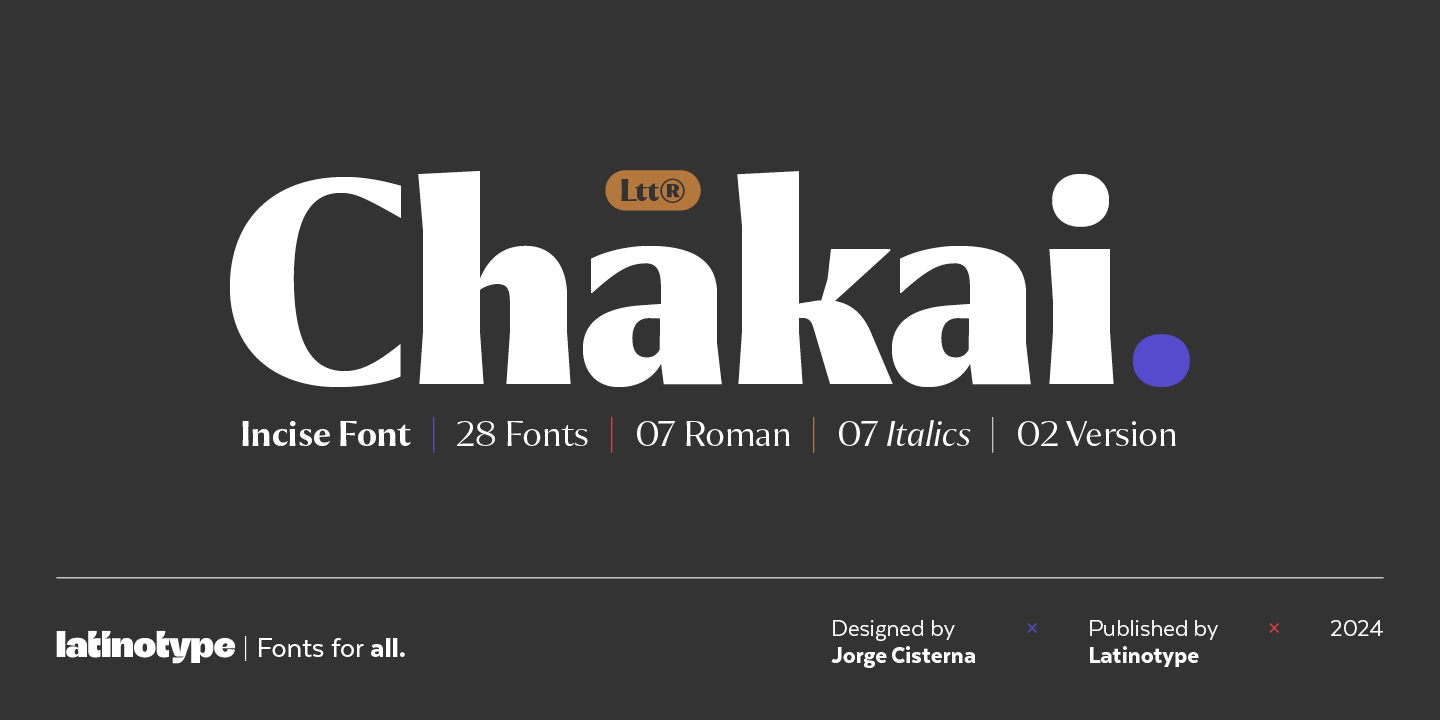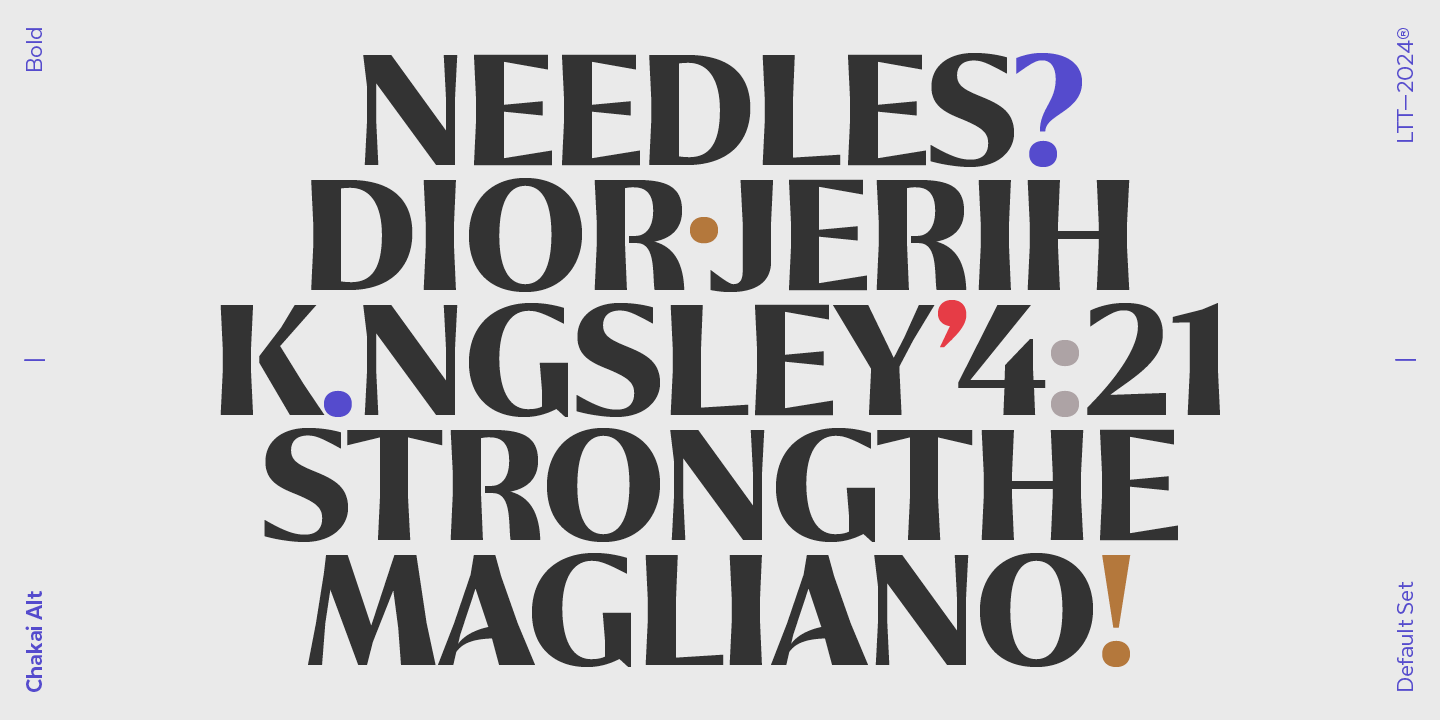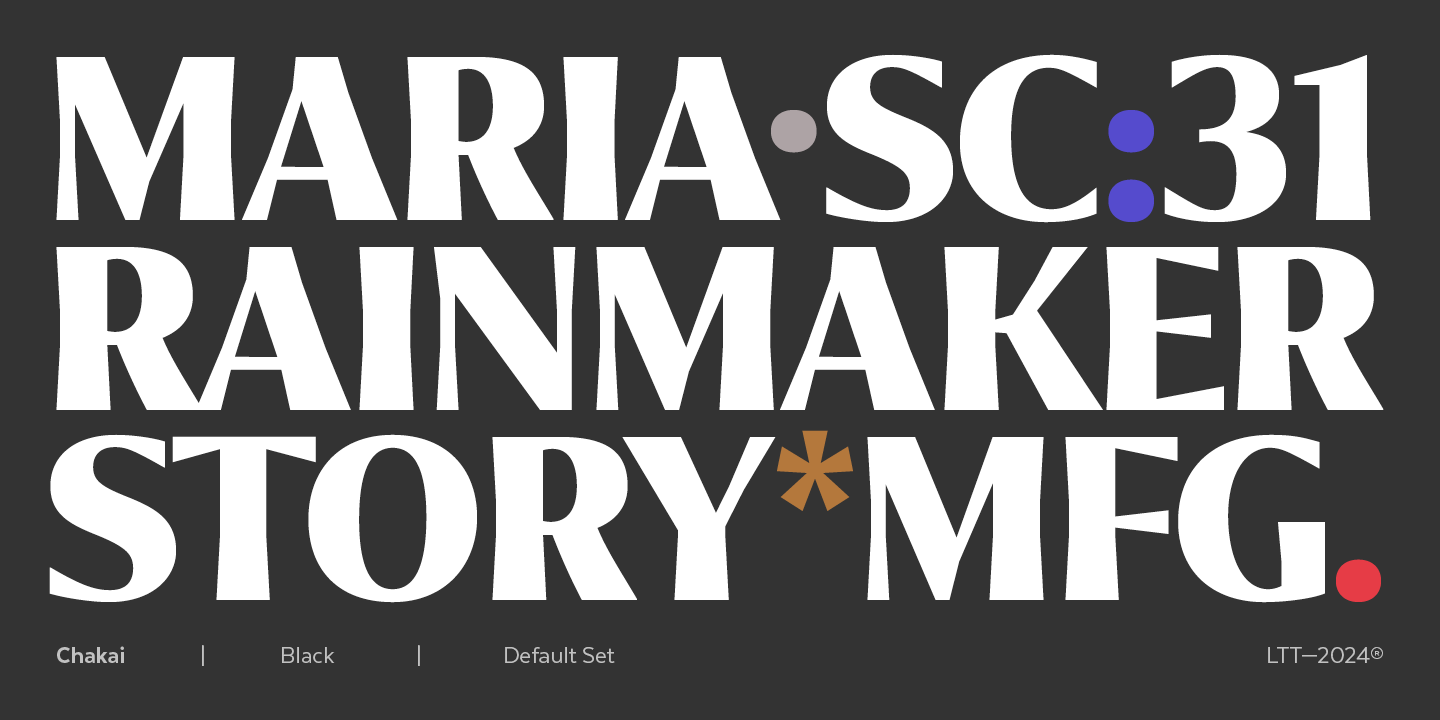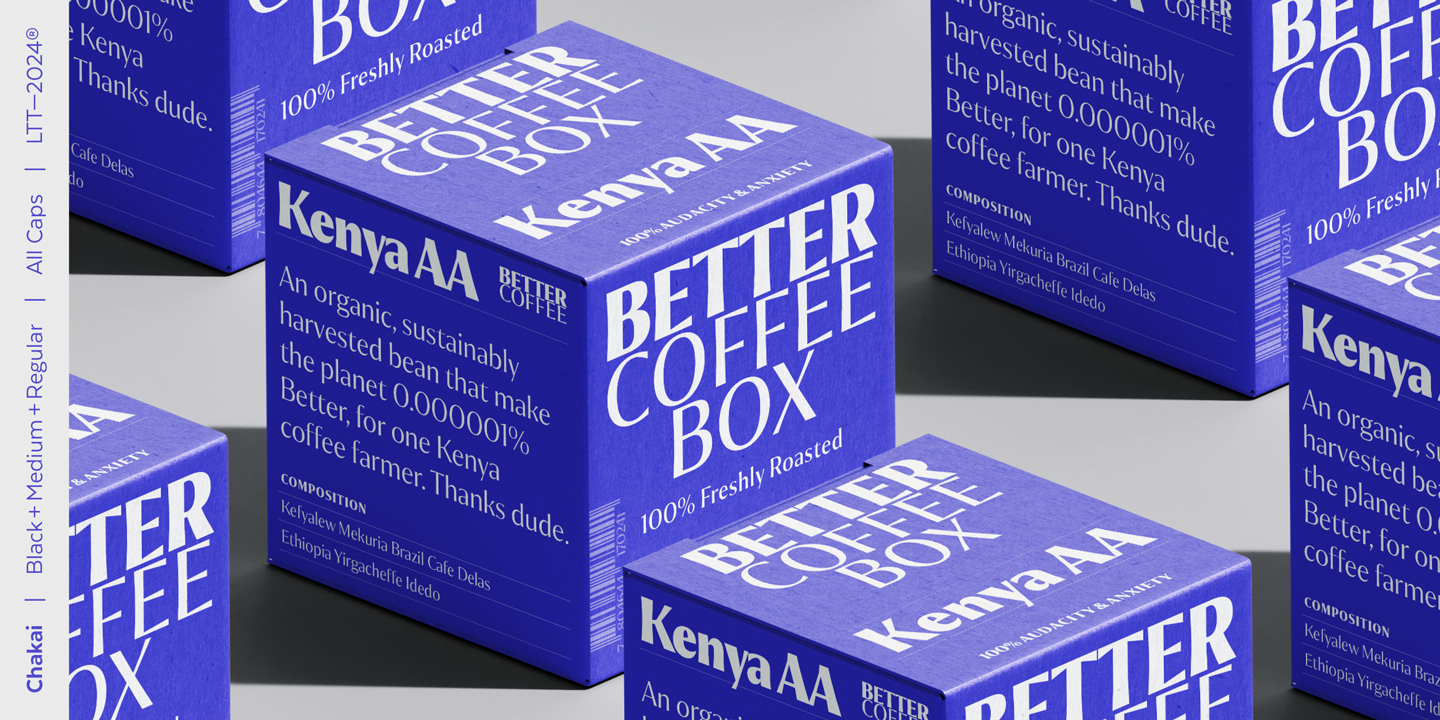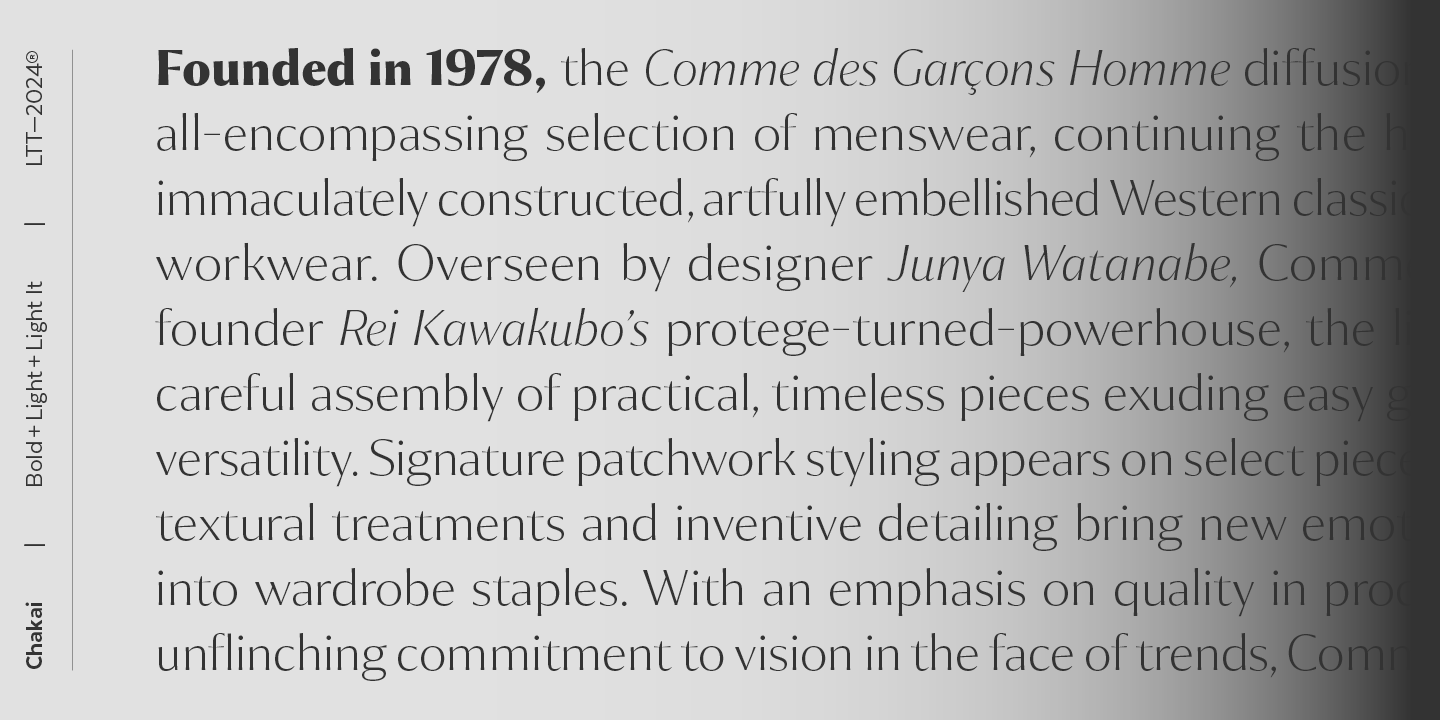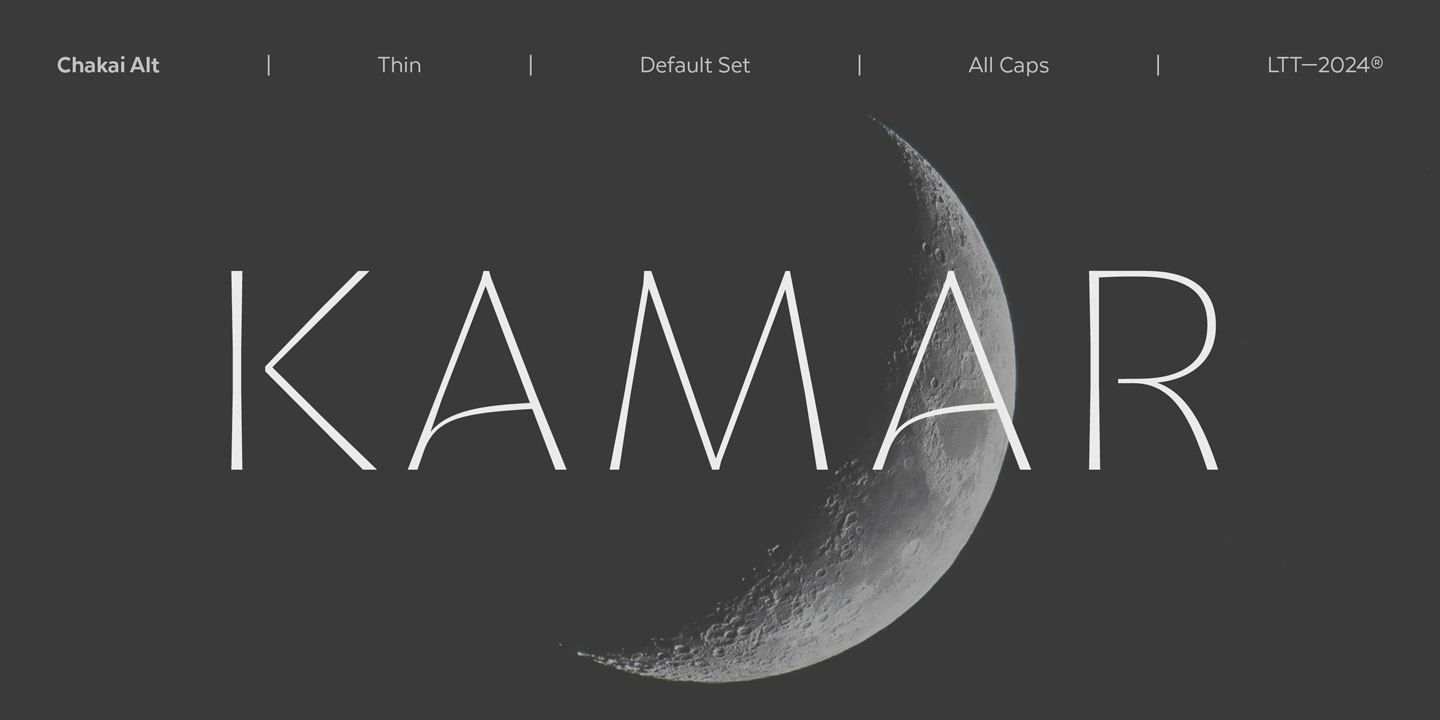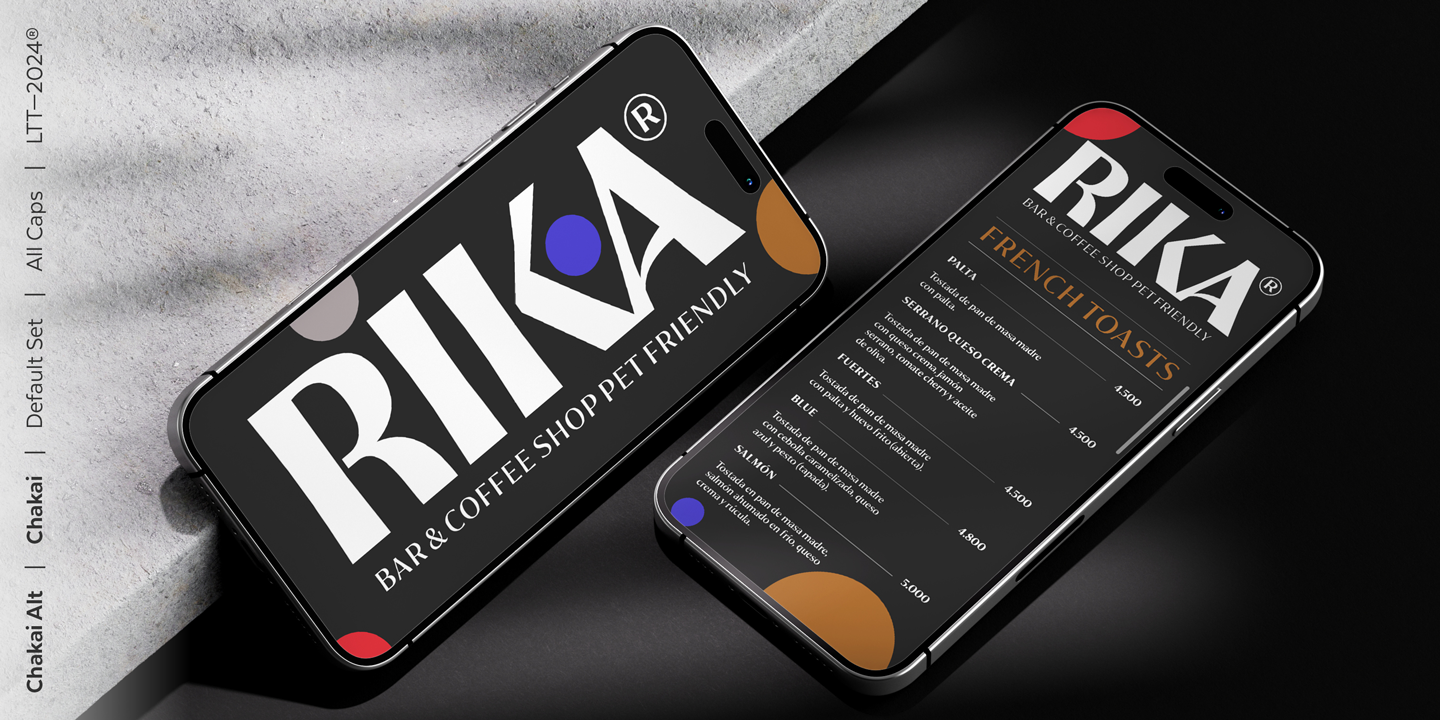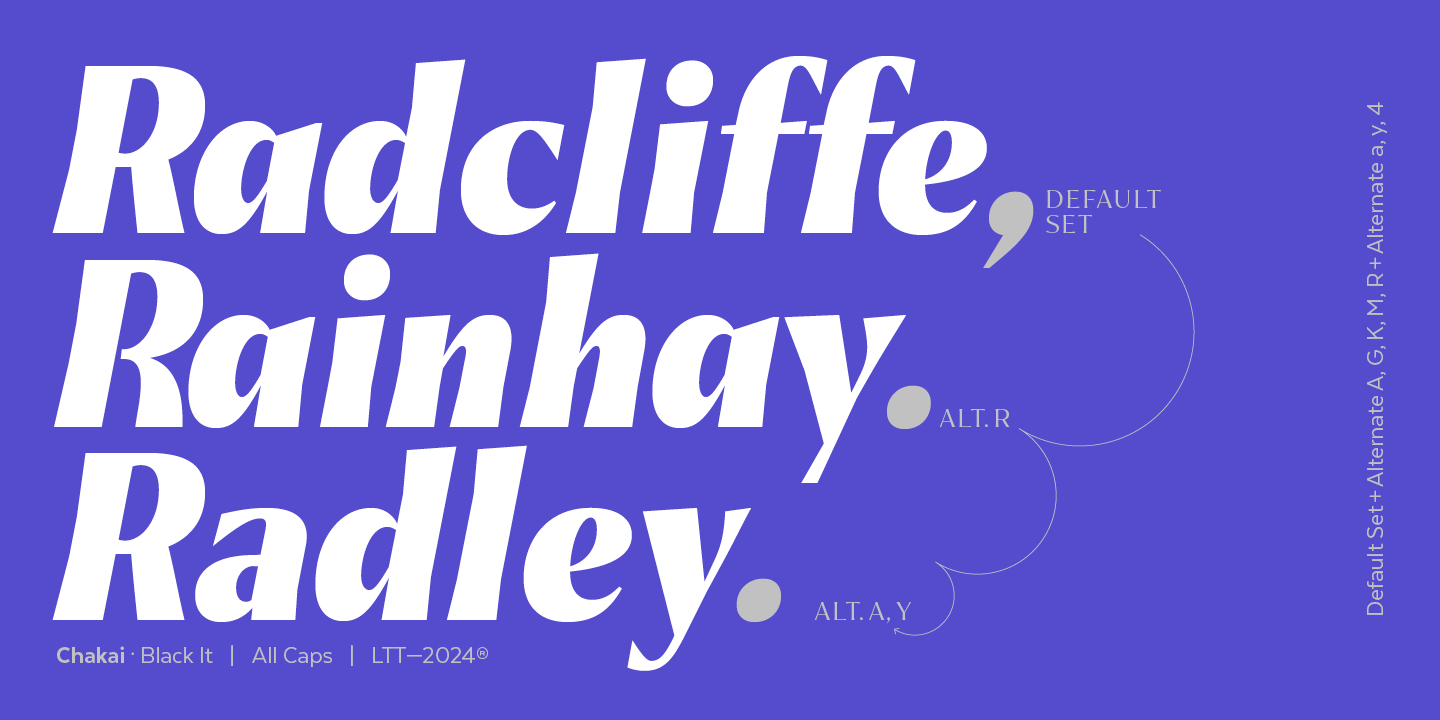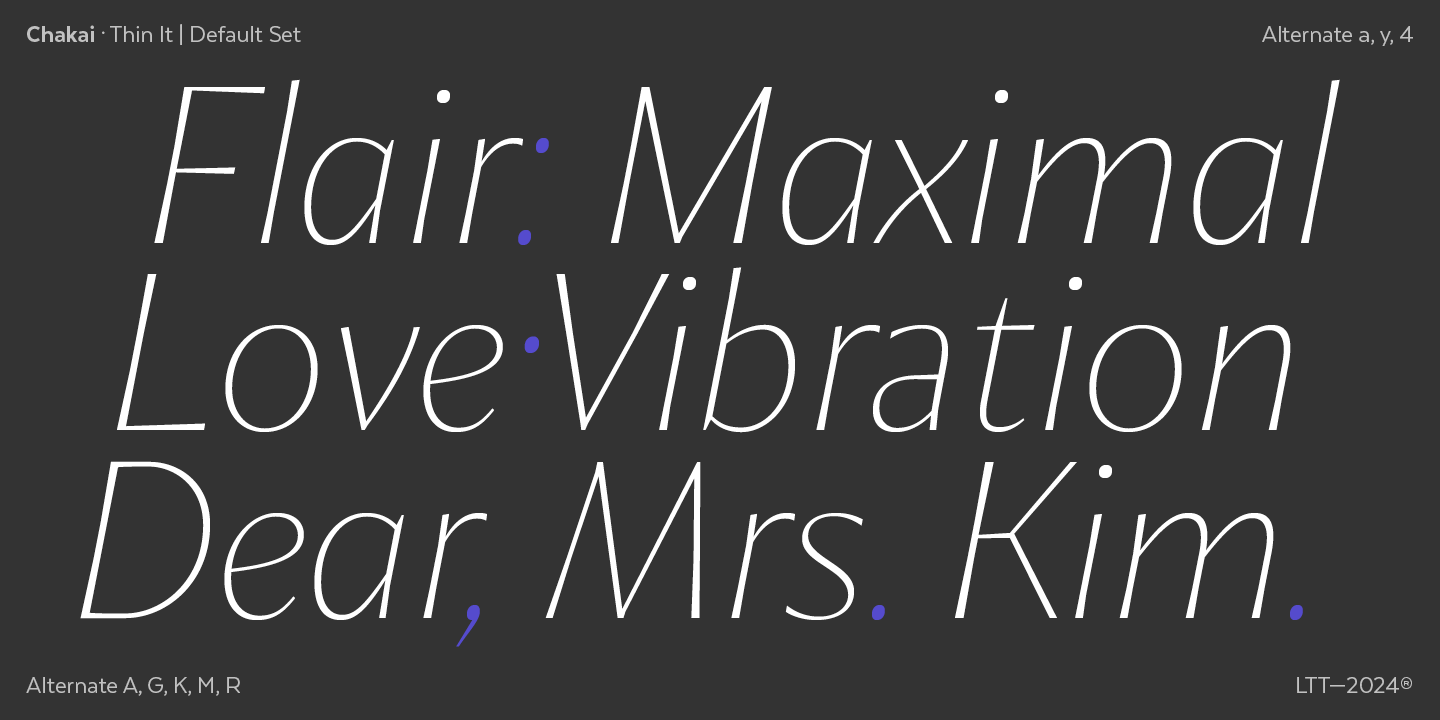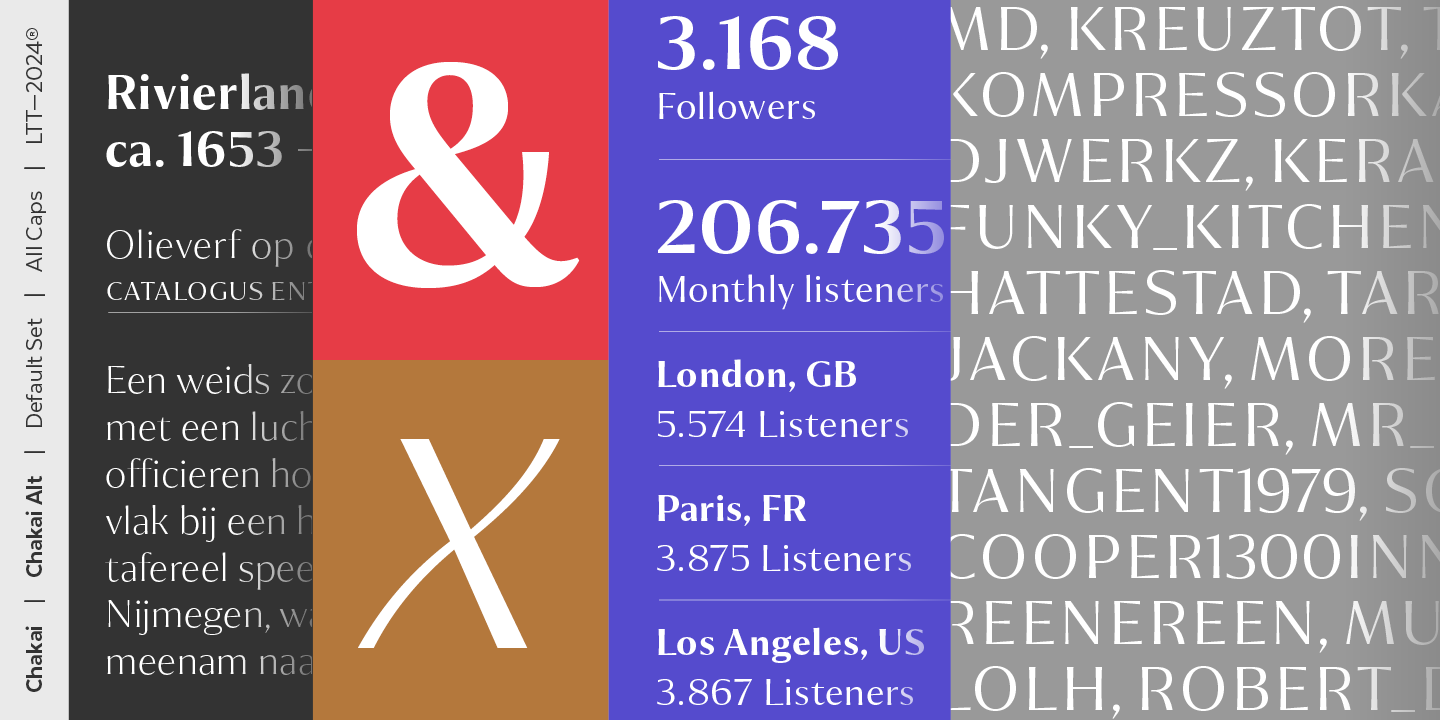
Chakai has a variety of weights that make it ideal for eye-catching headlines in various applications such as logos, packaging design or article headers and a wide variety of possibilities for use in editorial design because it maintains its readability in long texts and stands out in large size, making it a versatile option for any project.